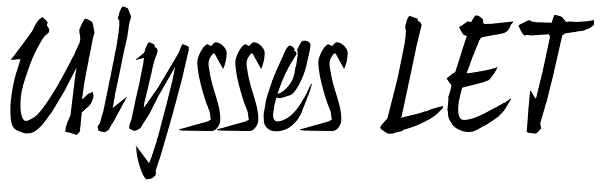
Ulysses
Timothy Donaldson, English calligrapher, used a Decro Pen with a square-shaped nib to create this informal, energetic-looking typeface. The immediate, authoritative look of the letters are enhanced by close letter spacing. Can be used for purposes...